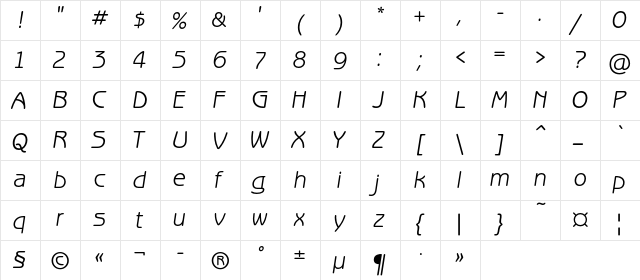
BenguiatGothicC Italic Font Preview
BenguiatGothicC Italic
BenguiatGothicC Italic Font Details
Design Context for BenguiatGothicC Typeface
BenguiatGothicC has the quiet confidence of well-executed sans-serif typography: versatile, unobtrusive, and dependable at any size. The slanted form adds forward momentum and visual energy.
Font Pairing: Works well alongside a characterful serif or display font that can carry the expressive load while BenguiatGothicC handles the functional copy.
Pro Tip: Pair BenguiatGothicC with a display or serif font for headlines — its neutral character makes it an excellent supporting player in complex typographic systems.